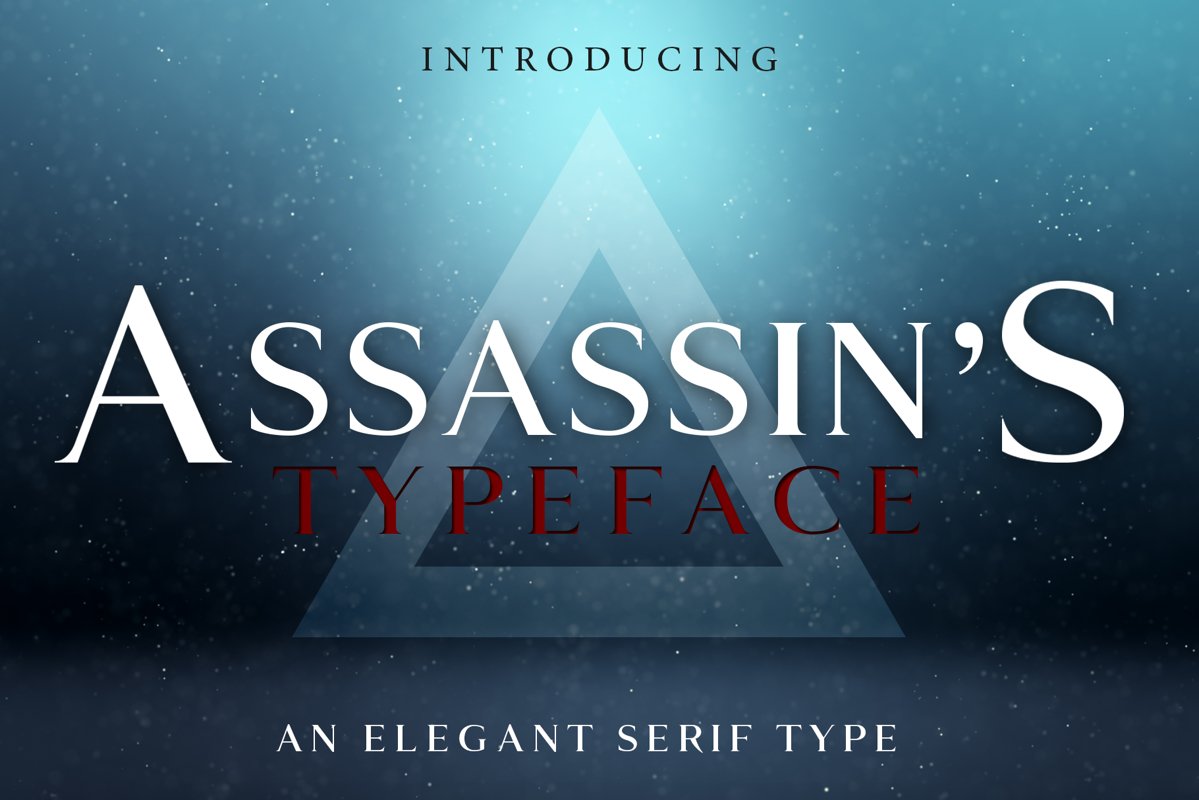
ASSASSIN'S - An Elegant Typeface
Assassin light
Assassin regular
Assassin regular-italic
Assassin light-italic
A typeface inspired by the video game series. This typeface uses an elegant serif style that is perfect for wordmark logos, mastheads, pull quotes & monograms showing both feminine and masculine qualities. This font comes in regular, bold, light and light italics. It comes with special characters.